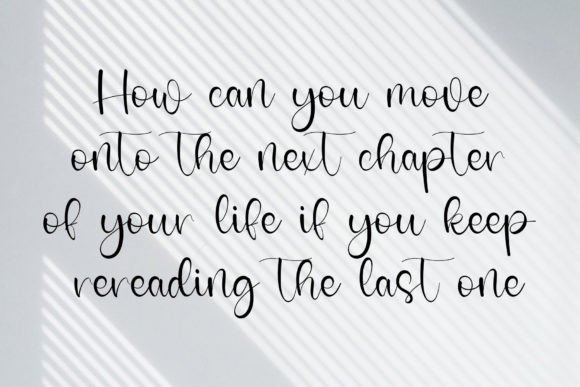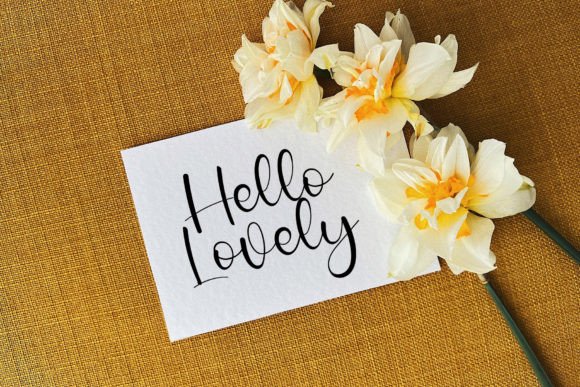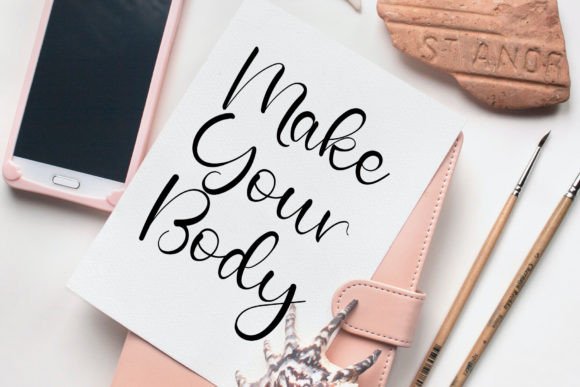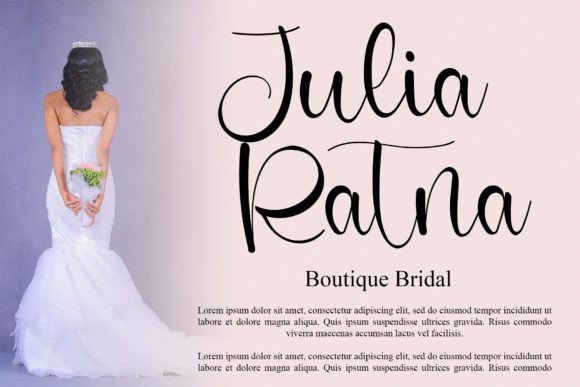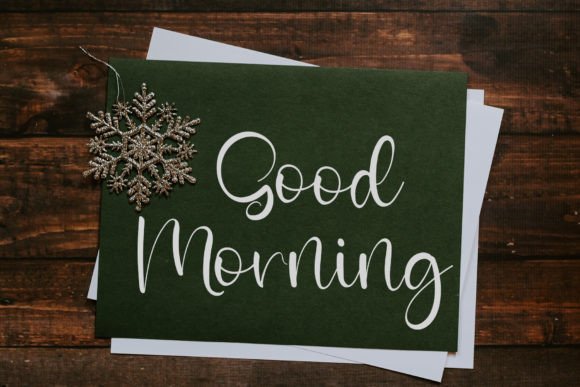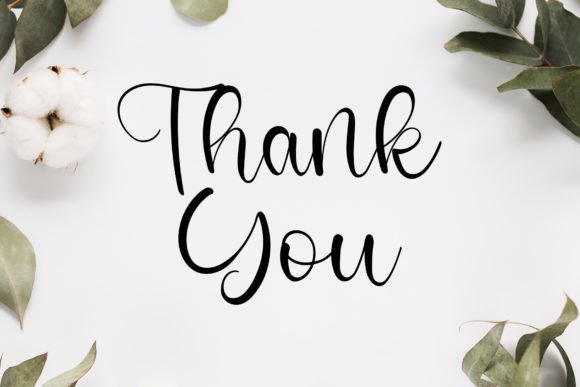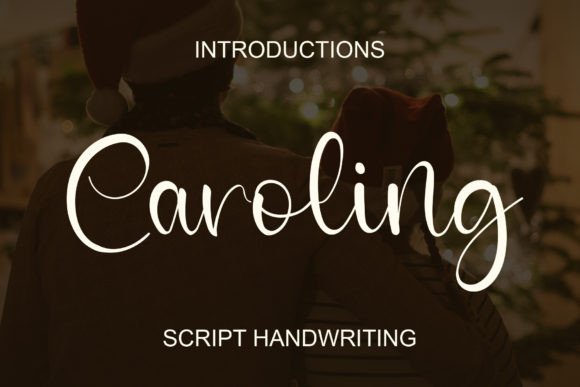
The Quest for the Perfect Font: Discovering Caroling
Ah, the eternal struggle of finding the perfect font for your design project. I recall a particularly frustrating moment when I was working on a client’s wedding invitation suite. The design was beautiful, but I just couldn’t find a font that captured the essence of the occasion – elegant, yet modern; classic, yet playful. That’s when I stumbled upon Caroling, a stylish handwritten font that has since become a staple in my design toolkit.
A First Impression: What I Love About Caroling
Caroling is a stunning handwritten font that exudes a contemporary atmosphere while paying homage to timeless classic calligraphy. Here’s what I love about it:
• ✨ Balanced and varied: Caroling’s characters are thoughtfully crafted to provide a perfect balance of elegance and playfulness.
• ✅ Impeccable form: The font’s attention to detail is impressive, with beautiful letterforms that are both aesthetically pleasing and highly legible.
• 💫 Contemporary vibe: Caroling’s modern twist on classic calligraphy makes it perfect for designs that require a touch of sophistication.
While Caroling is an exceptional font, there are a few minor quirks to be aware of:
• 🤔 Limited multilingual support: Caroling’s character set is extensive, but it may not support all languages or special characters.
• ⚠️ Occasional kerning issues: As with any font, you may encounter some kerning issues, particularly when using certain character combinations.
The Story Behind Caroling: Designer Inspiration
Caroling was inspired by the classic calligraphy of the Carolingian Renaissance, a period of renewed interest in art and learning that took place in Europe during the 8th and 9th centuries. The font’s designer aimed to capture the essence of this timeless era while infusing it with a modern twist. The result is a font that is both elegant and contemporary, perfect for designs that require a touch of sophistication.
What is the best use for Caroling? Caroling is ideal for designs that require a touch of elegance and sophistication, such as wedding invitations, branding, and high-end marketing materials.
Is Caroling suitable for body text? While Caroling is a beautiful font, it’s best suited for headlines and titles. For body text, consider using a more traditional serif or sans-serif font.
Does Caroling support OpenType features? Yes, Caroling supports OpenType features, including stylistic alternates, glyphs, and ligatures.